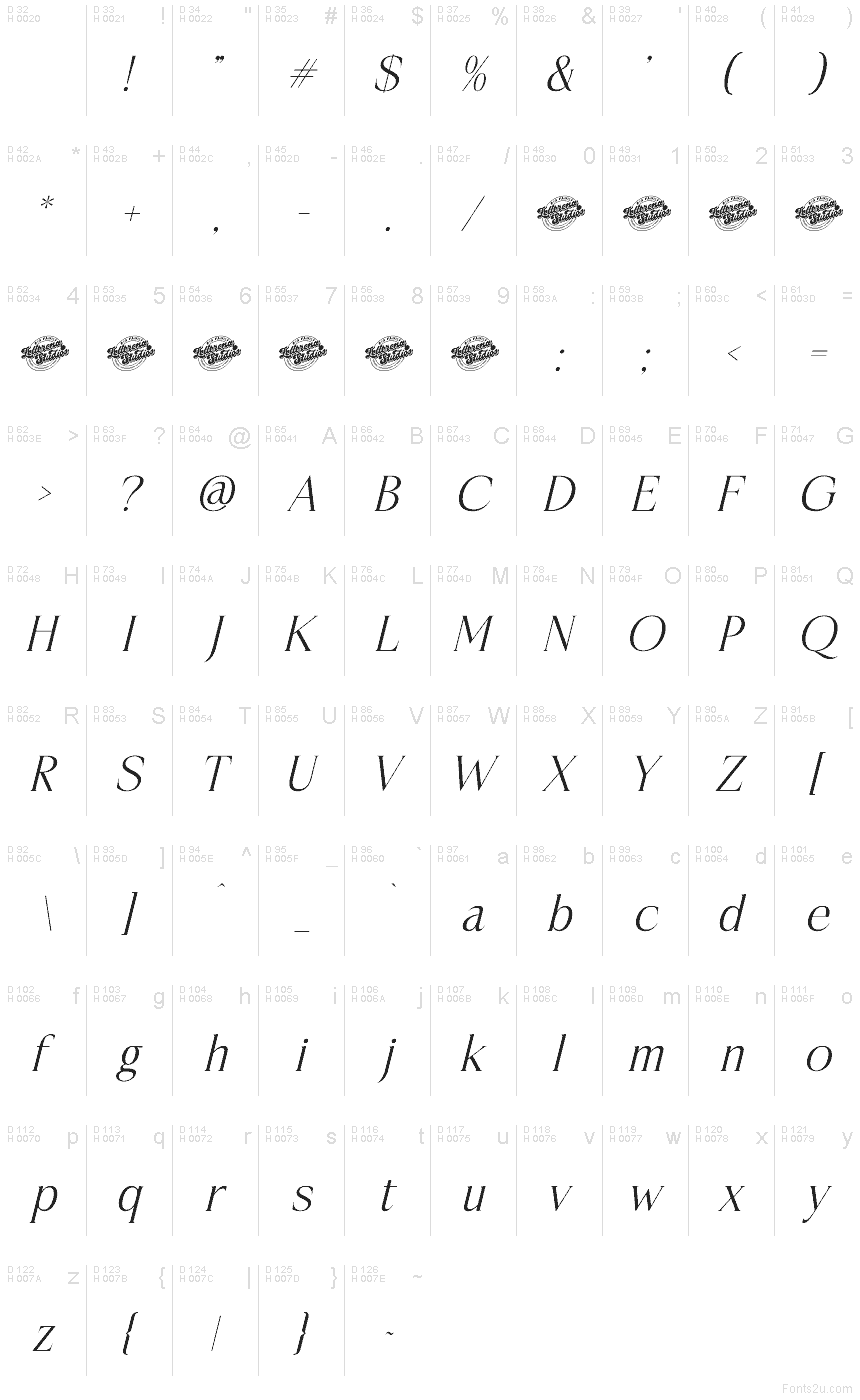
Casselin DEMO VERSION Italic
Casselin Italic font by Letterena Studios is a free serif font that brings a refined, editorial elegance to any layout. The Casselin family’s italic cut feels like ink pulled swiftly across smooth paper—slender strokes, generous curves, and a poised forward tilt that suggests motion without losing control. It has a cool, polished character that reads as quietly luxurious rather than loud or showy.
Using Casselin Italic, your work naturally gravitates toward premium territory—think beauty branding, magazine covers, book titles, packaging, wedding stationery, and fashion lookbooks. This free font shines at larger sizes where its fine details can breathe, then can be paired with a clean geometric sans for body text to keep everything crisp and contemporary.